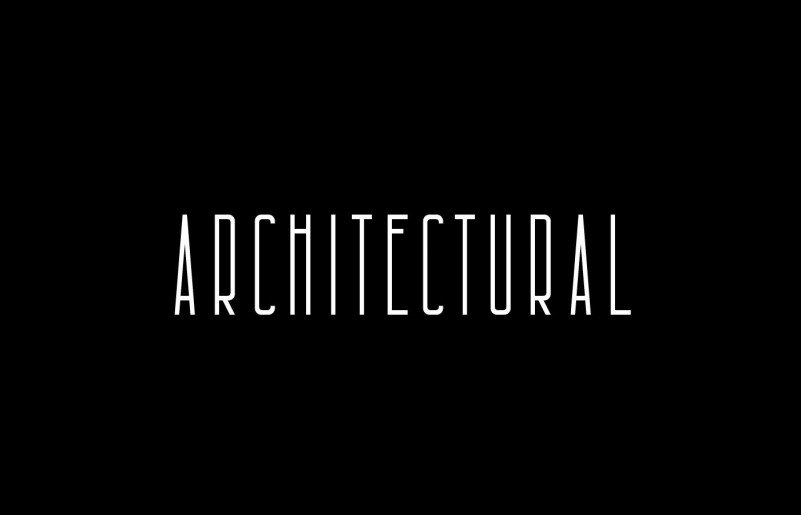
Architectural Free Font
This is a modern and elegant sans serif. chic font takes the decoration out of deco but keeps those vintage curves. A perfect mix of new and old. This versatile font can be used for word-mark logos, mastheads, pull quotes & monograms.
Based on drawing fonts with which students draw up their projects. Contains strict proportions and planned geometry. Suitable for headings and small. This versatile font can be used for word-mark logos, mastheads, pull quotes & monograms.